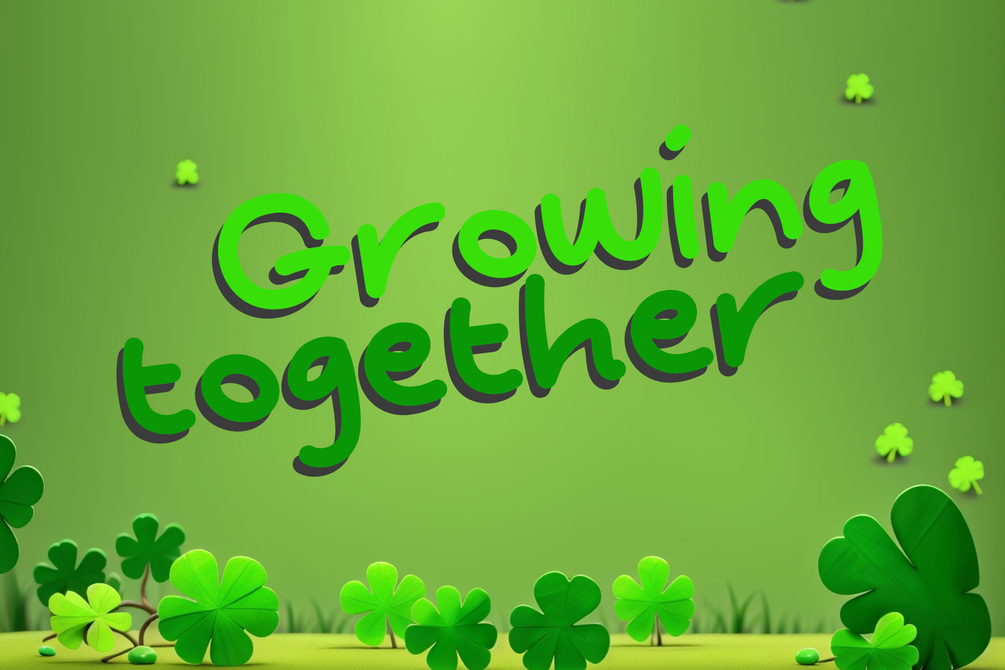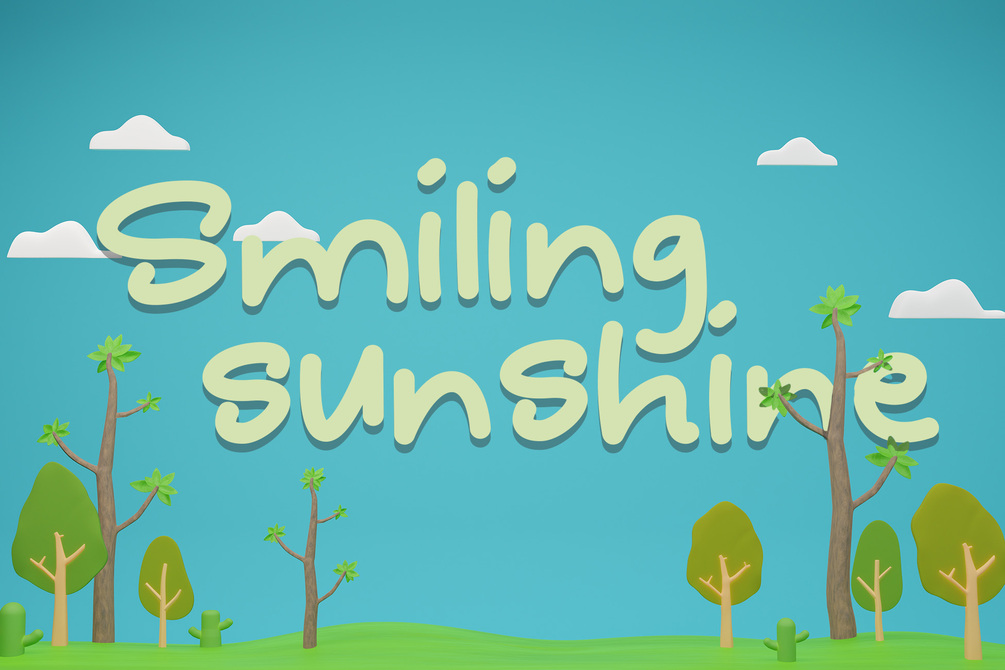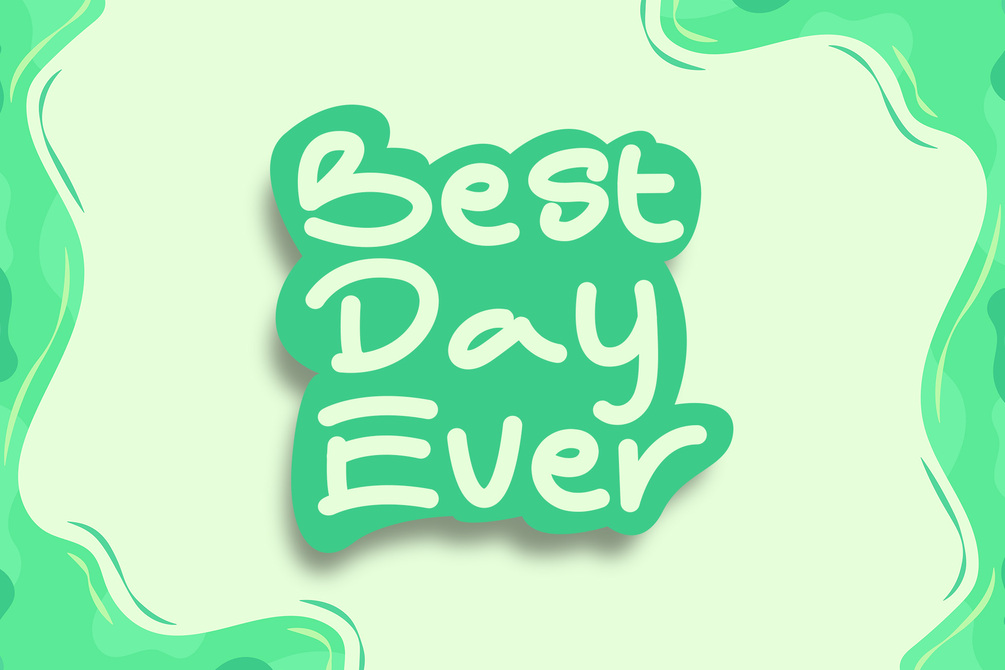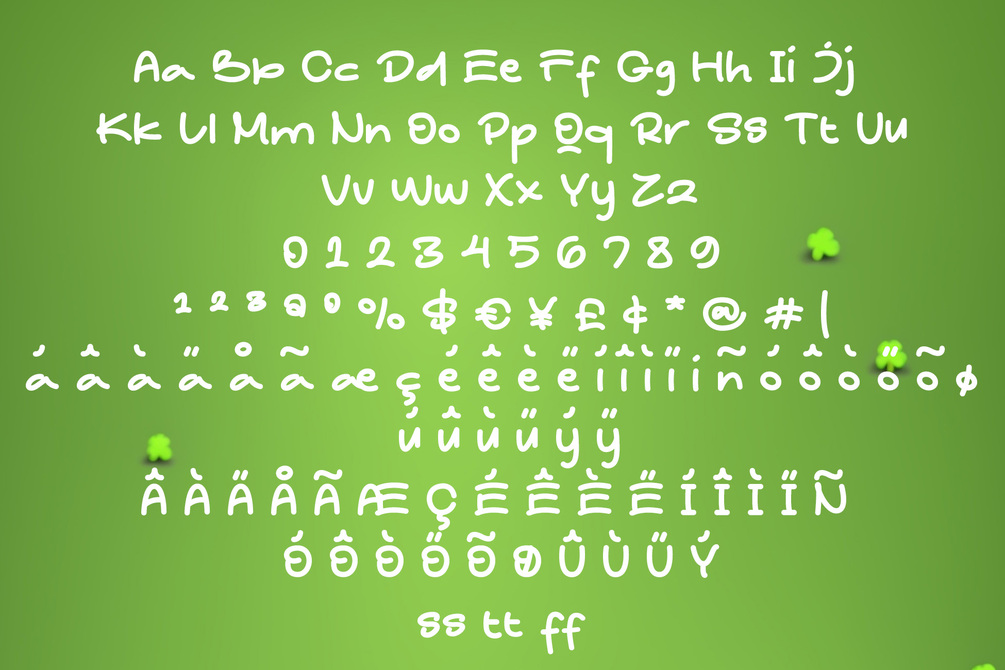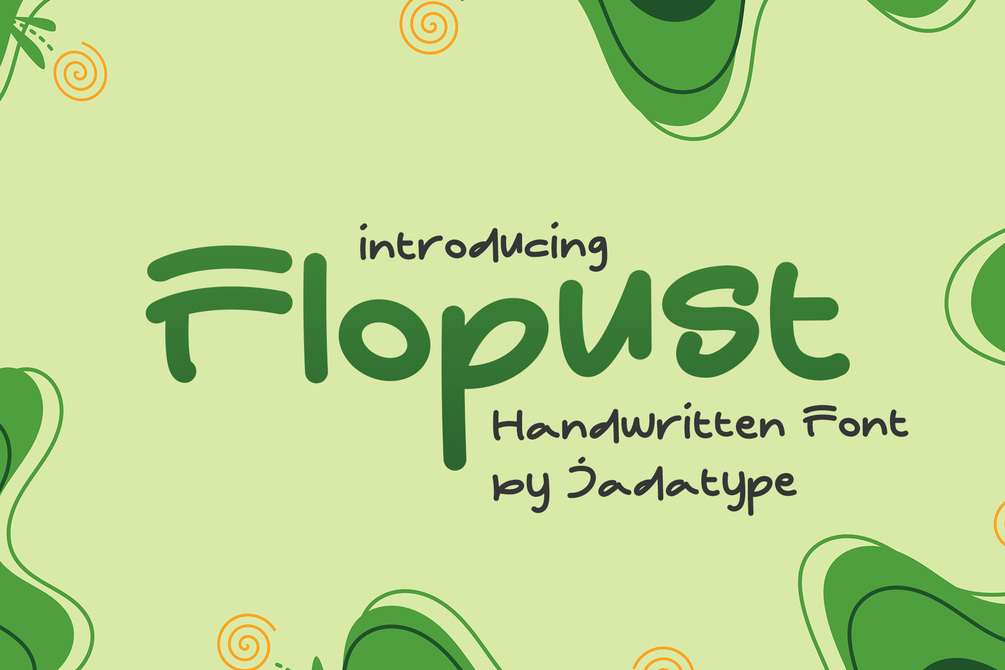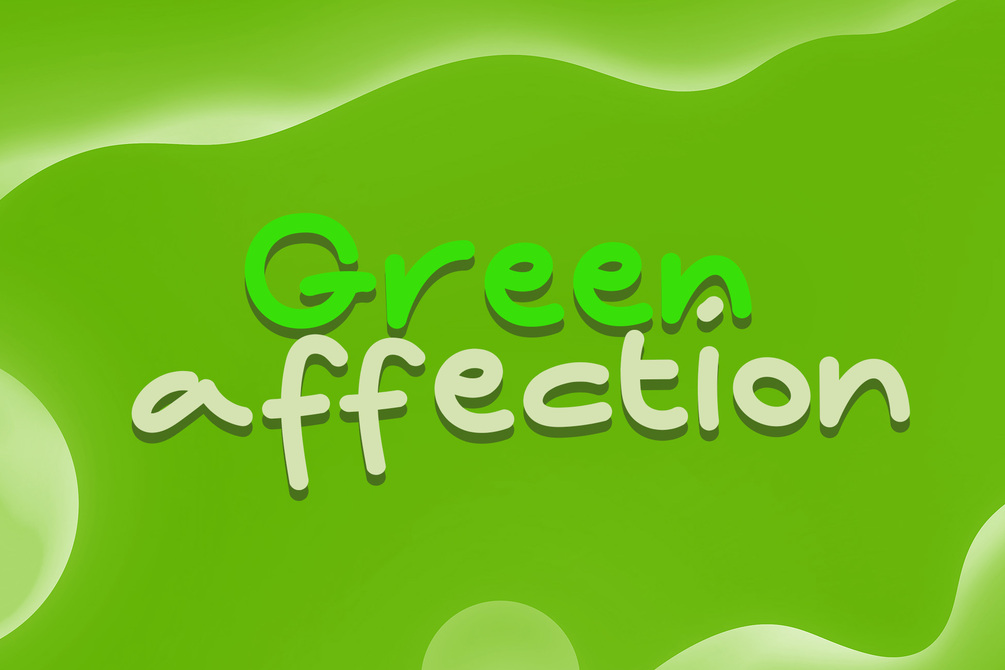
Flopust Font
Flopust is a Handwritten Font that comes with Fun and Natural Style. Suitable for product, Branding, social media, logotype and so on. contains standard English letters, numbers, punctuation, and several accents that support multilingualism.